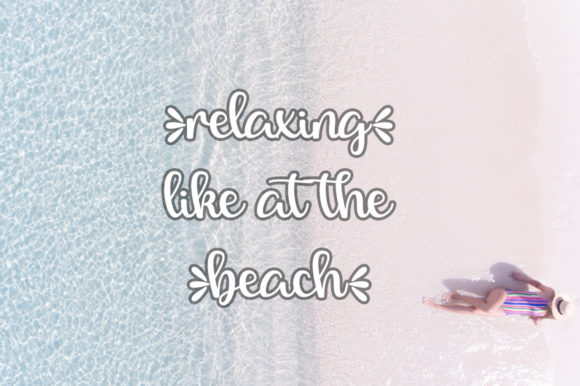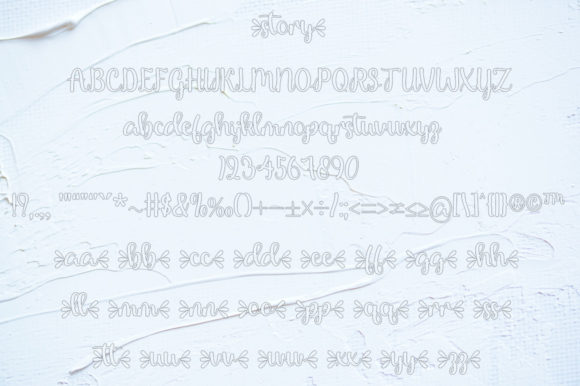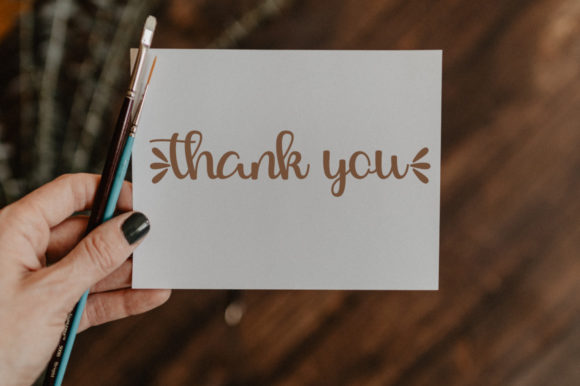
About Story Font
Story is a fun and playful handwritten font. It looks lovely on a variety of design ideas that require a trendy touch. This font is PUA encoded which means you can access all glyphs and swashes with ease!